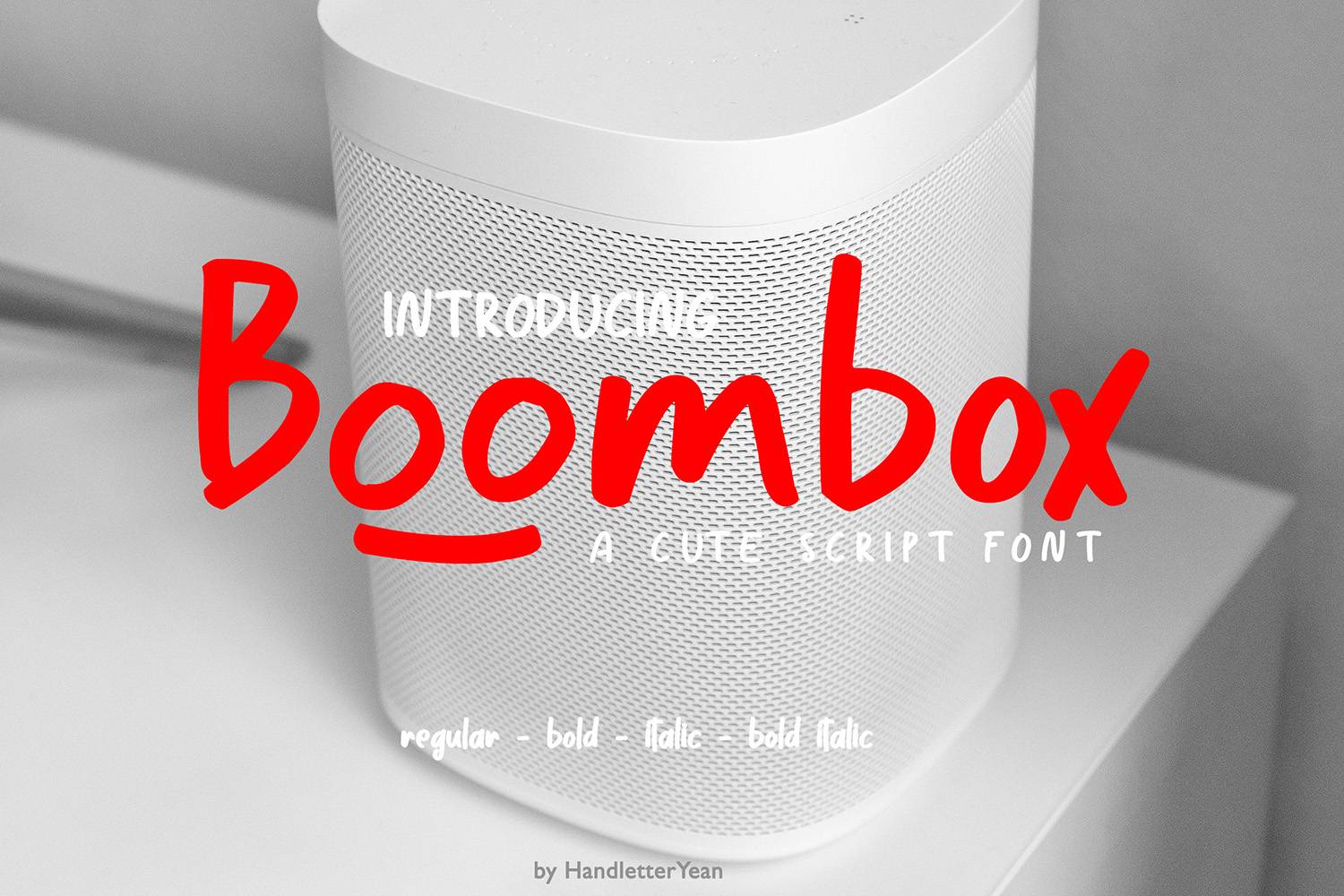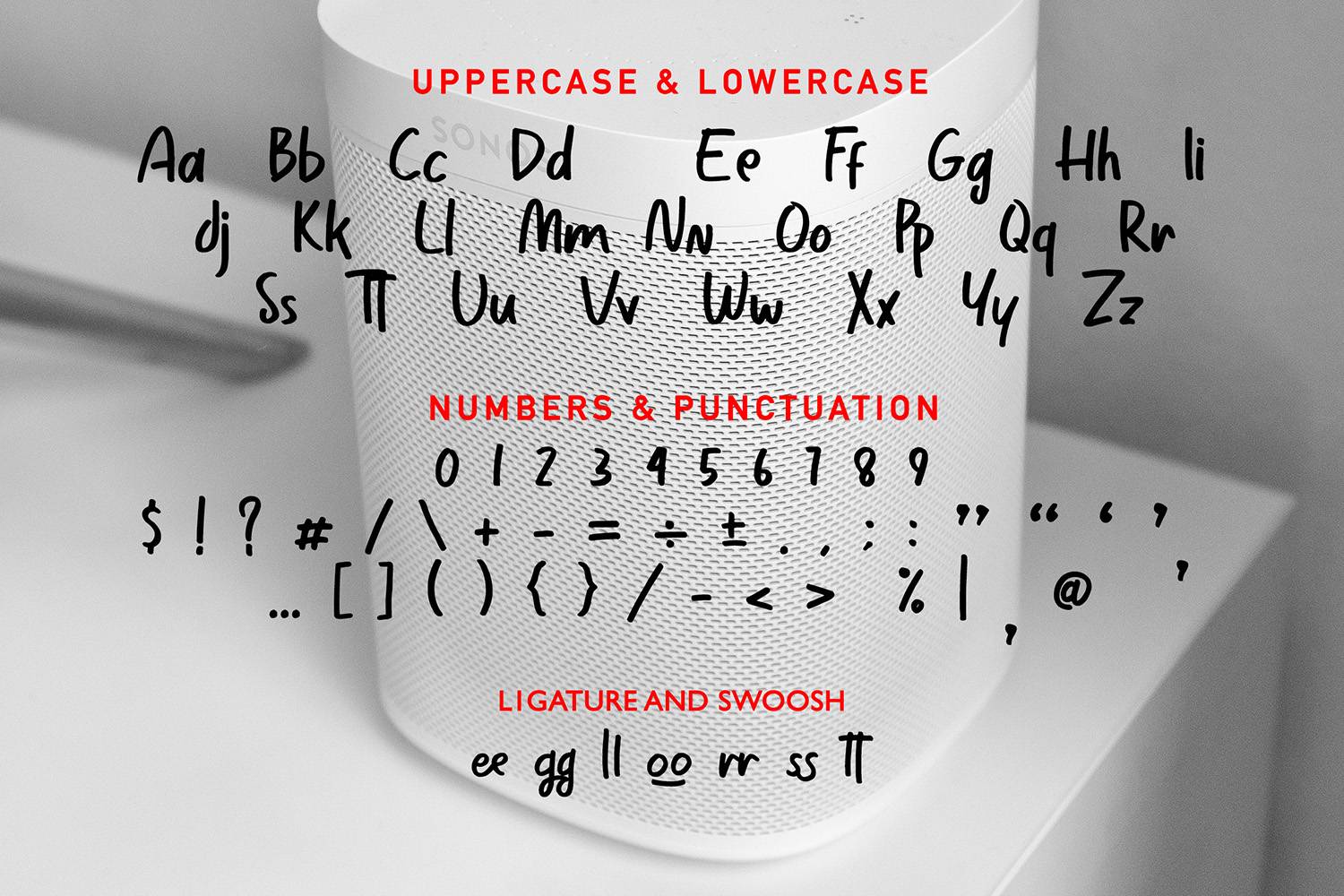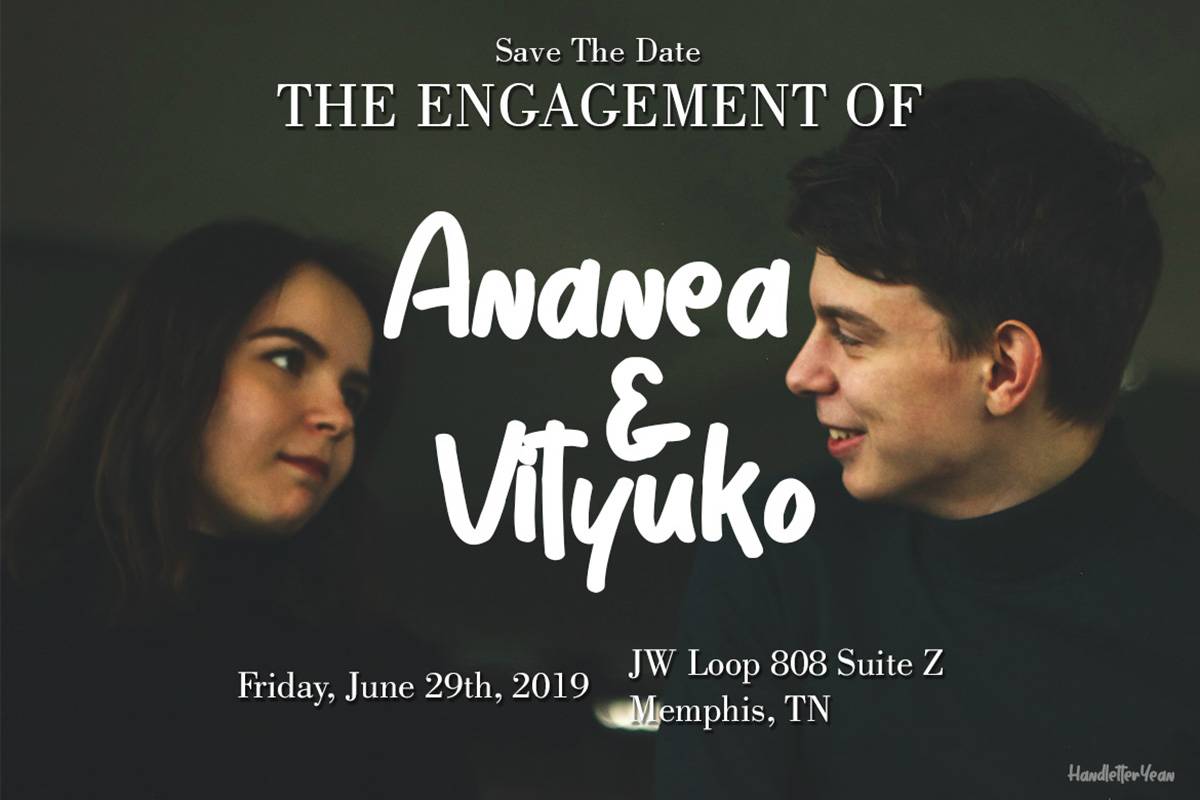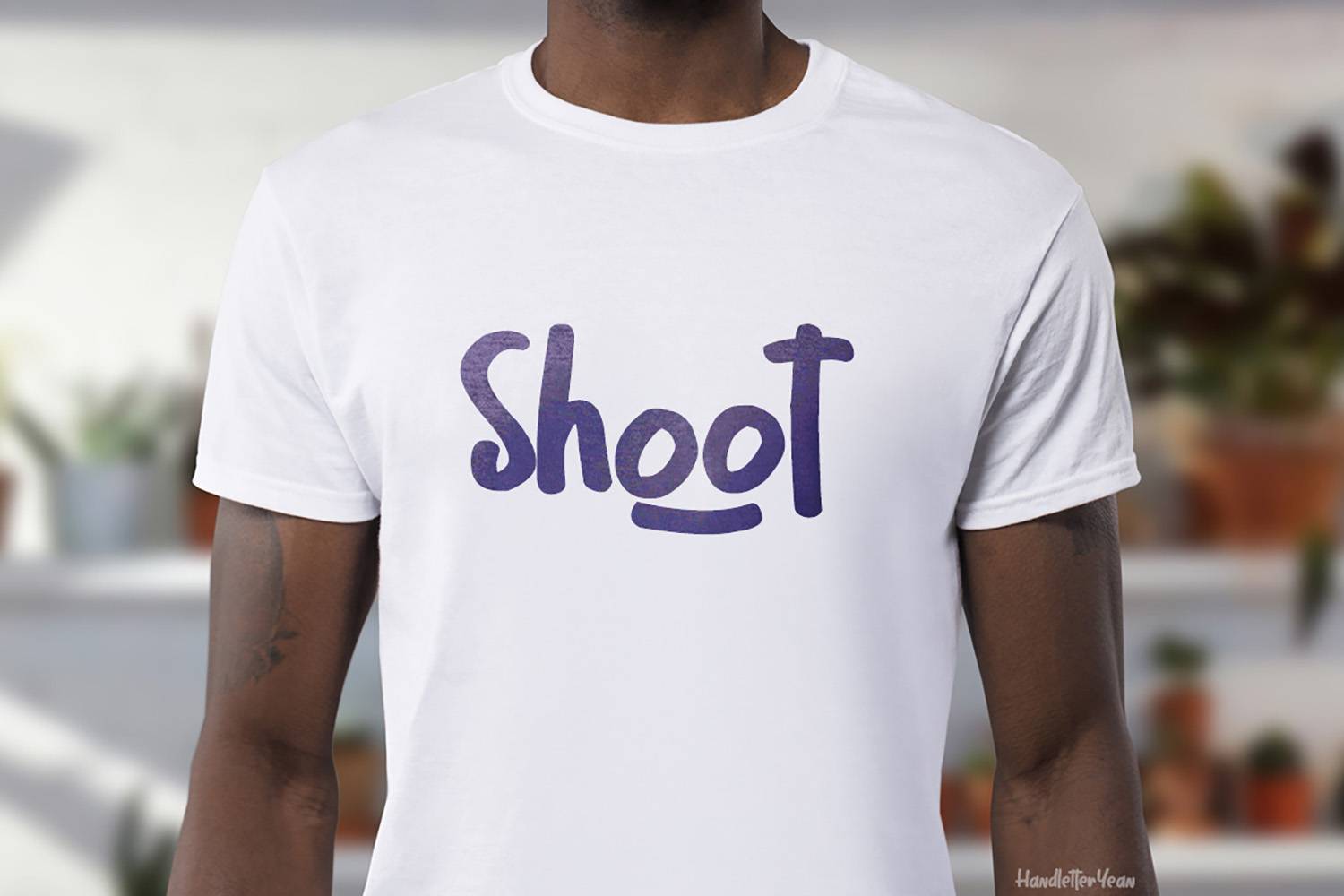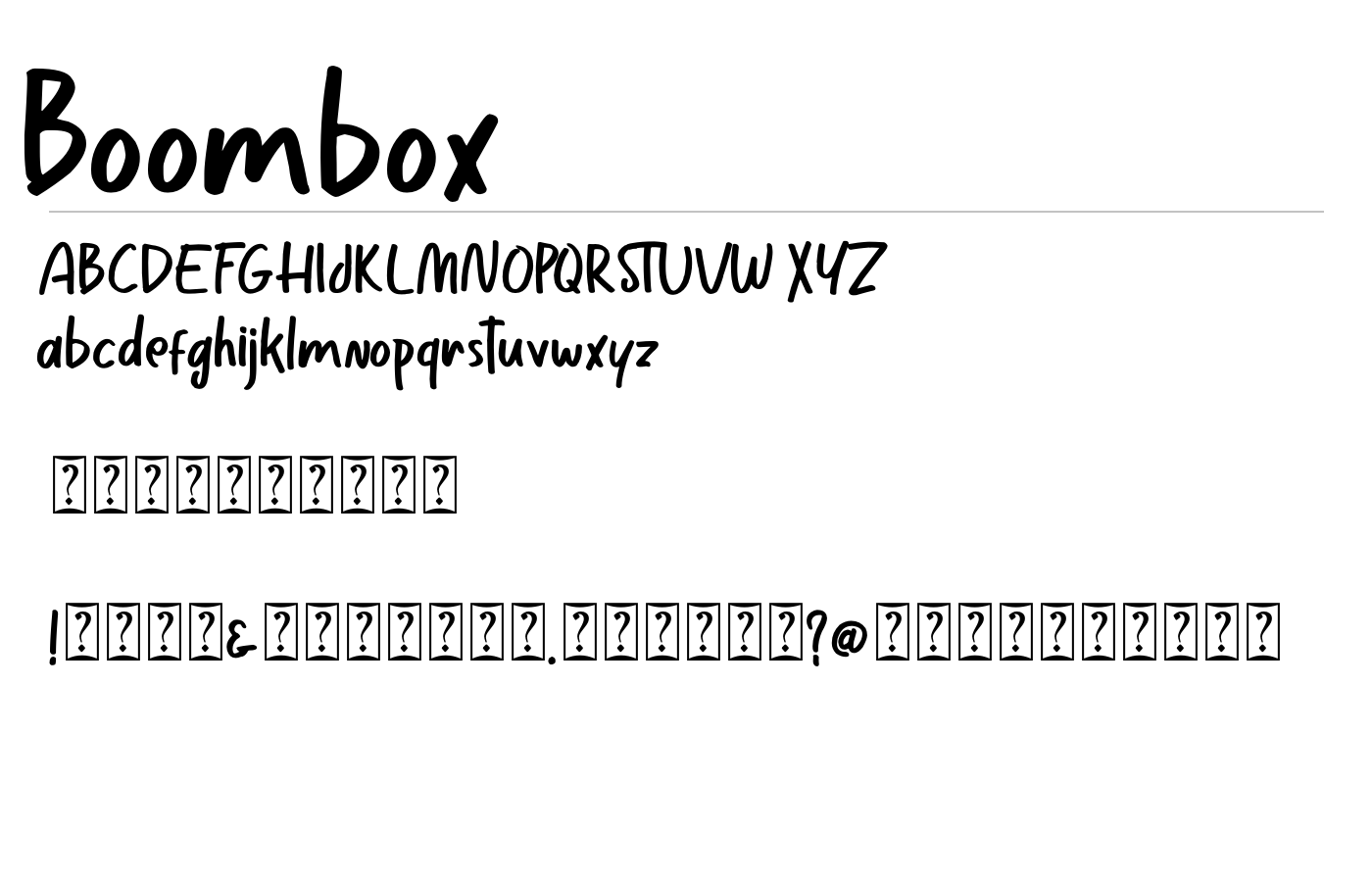
Boombox is a lively, casual handwritten font with a bold, friendly appearance and slightly irregular letterforms that give it a playful, approachable feel. Its tall, narrow characters with moderate stroke contrast make it ideal for informal designs, adding a sense of youthful energy and personality. This font works well for creative projects, social media graphics, and branding that aims to be both fun and personable.
| Font family | Boombox Font |
| Designer | HandletterYean |